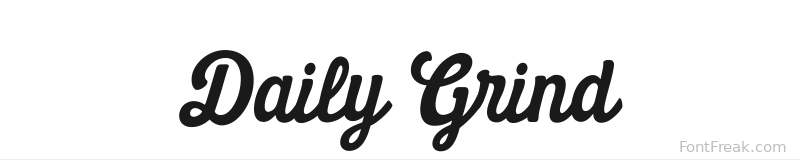
Daily Grind
Introducing the Daily Grind font by BLKBK Fonts, a standout typeface that captures the essence of casual elegance with its playful and modern vibe. This display font is characterized by its smooth, flowing strokes and a friendly, approachable demeanor. With a medium stroke weight and moderate contrast, Daily Grind strikes a perfect balance between readability and aesthetic appeal. The generous spacing enhances legibility, making it ideal for various applications.
Daily Grind shines in numerous creative contexts. Its charming design makes it perfect for coffee shop branding, where it can evoke a sense of warmth and comfort. Additionally, this font is well-suited for wedding invitations, adding a personal touch to a couple’s special day. It can also elevate restaurant menus, imparting a casual yet sophisticated feel that entices diners. For graphic designers, Daily Grind serves as an excellent choice for social media graphics, ensuring that any content stands out in a crowded digital landscape. Content creators will find it a valuable asset for blog headers and promotional materials, making their messages resonate with audiences.
The target audience for the Daily Grind font includes graphic designers, small business owners, and content creators who seek to infuse their projects with a unique flair. Its versatility ensures that it can adapt to various branding needs while maintaining a cohesive aesthetic.
What sets the Daily Grind font apart is its ability to blend playfulness with professionalism. This font exudes personality, making it an ideal choice for anyone looking to create an inviting atmosphere through typography. With a Daily Grind font free download available, it’s a fantastic addition to any designer's toolkit, offering the perfect blend of style and functionality for diverse projects.